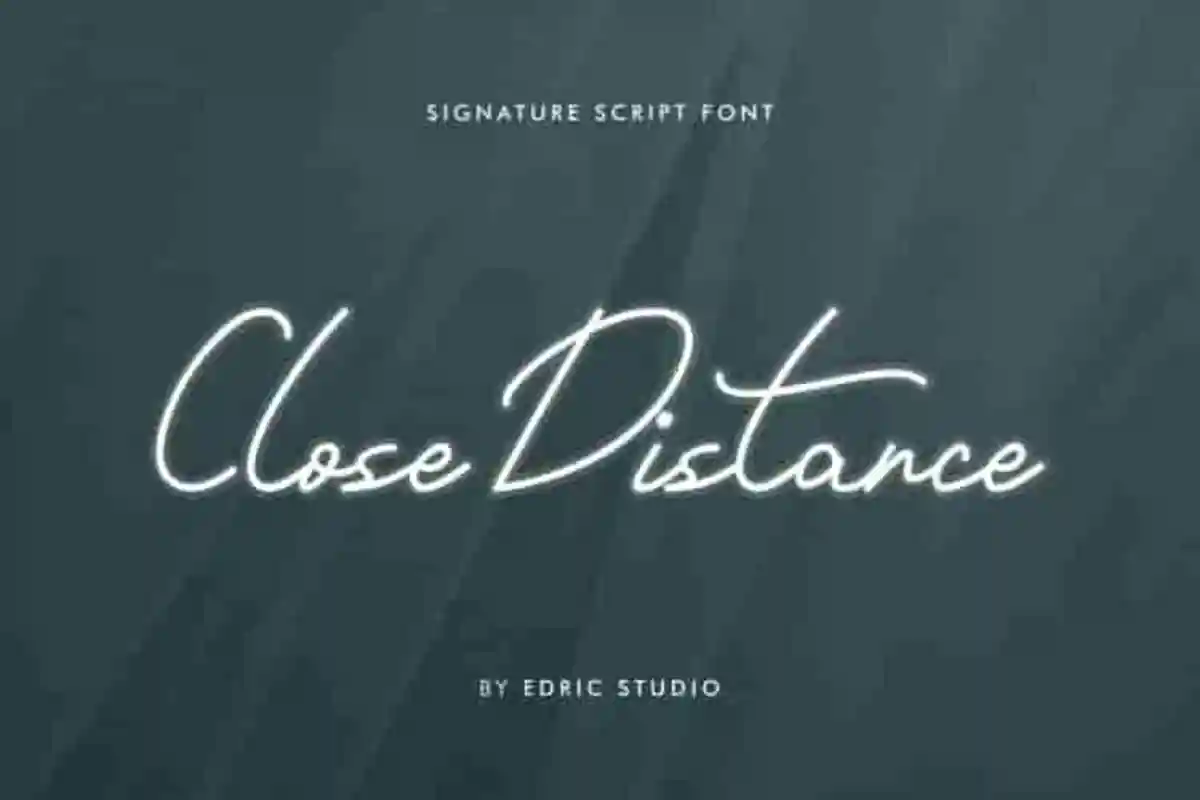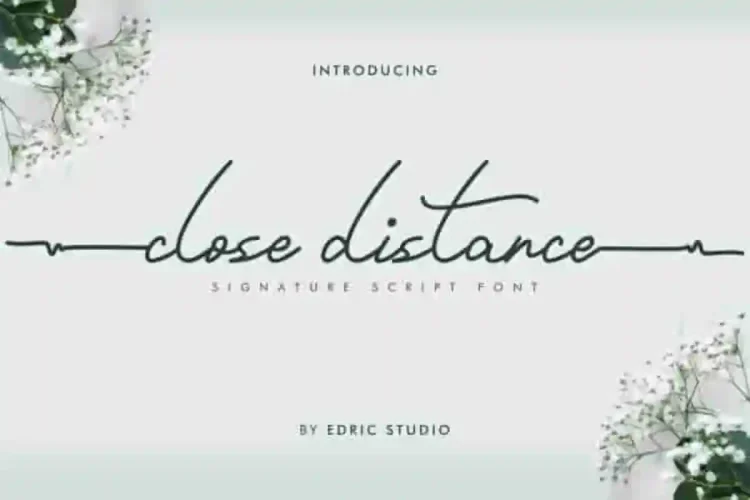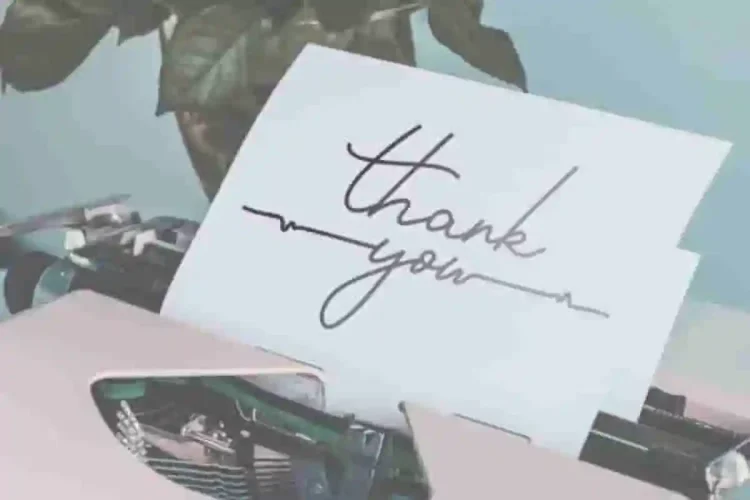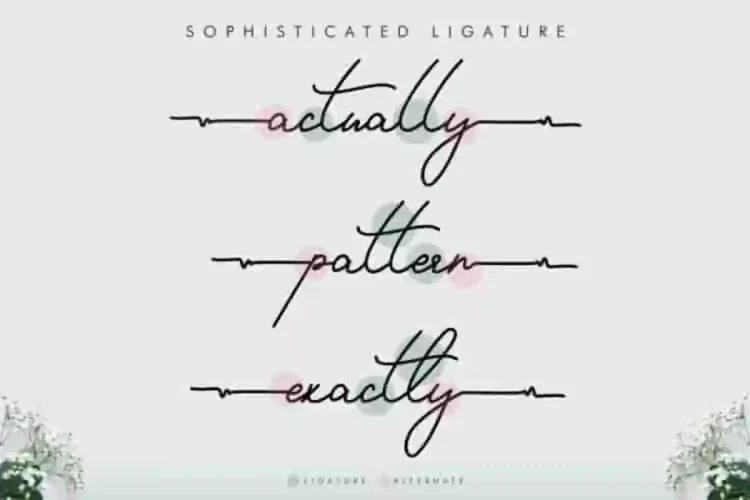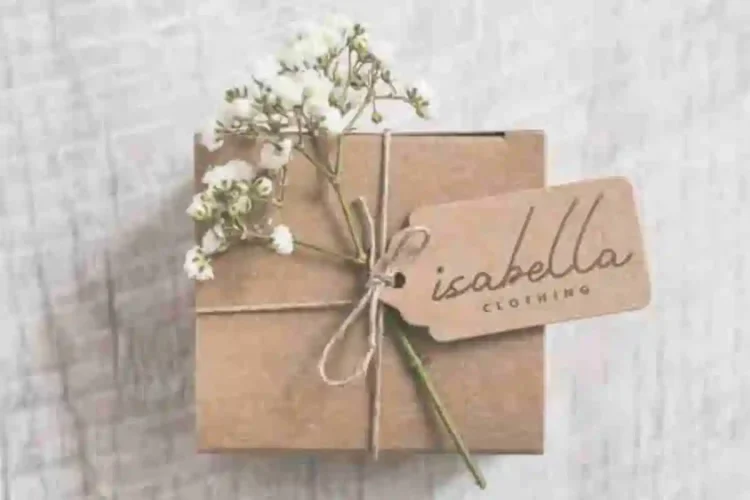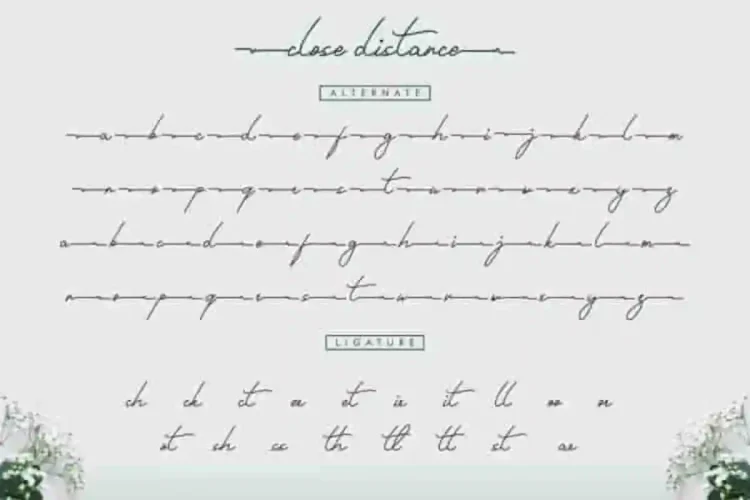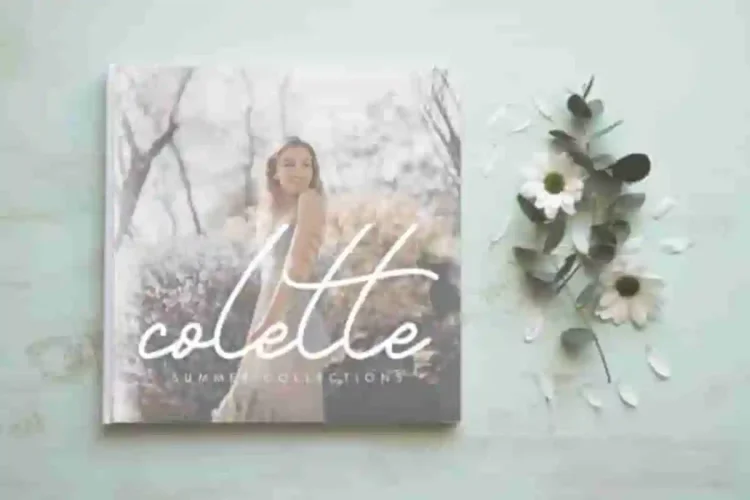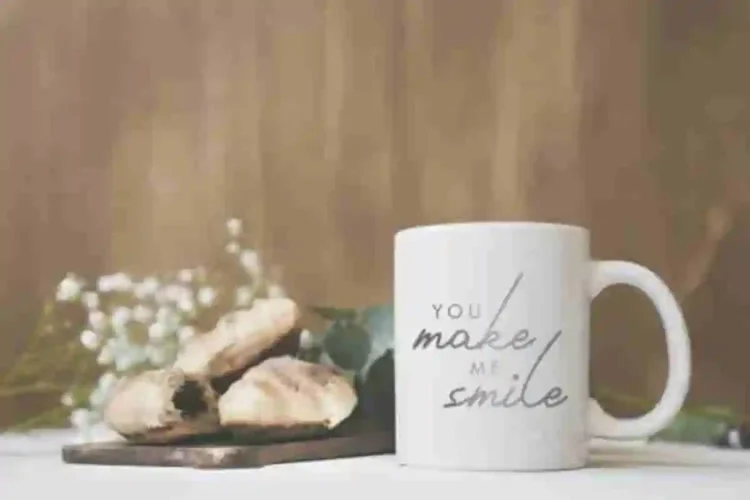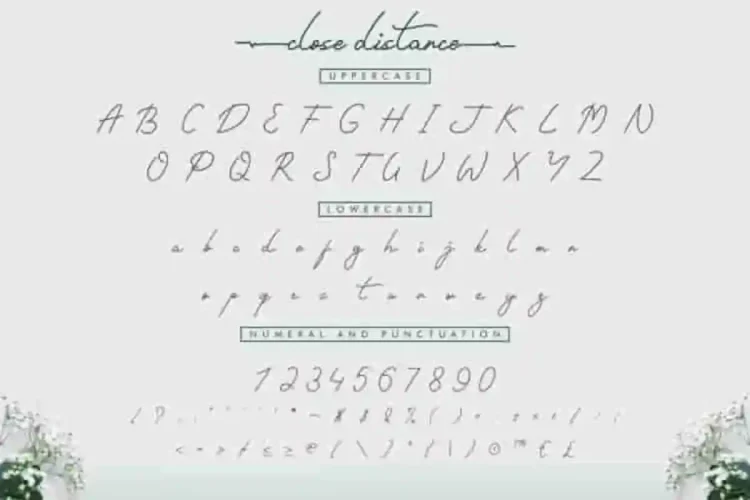
Close Distance Calligraphy Script Font
Close Distance Font
The newest font from our lovely artist : Close Distance Font
This is a signature font, handcrafted from our Studio here in, Indonesia. The artists/designers of this beautiful tyeface is Widi and Sarah Suci.
Close Distance Calligraphy Script Font is an exclusive calligraphy script typeface with signature style. This font has a stunning characters set, perfectly managed with well spaced and kerning. The theme style of this font will elegant,  vintage, stylish, sophisticated and classic signature style.
Close Distance Calligraphy Script Font will be great for any projects (with exntended license) including : branding, logo, stationery, business card, signage, flyer, brochure etc. Almost all industries will be match for this typeface: wedding, events, real estate, architect, law firm, florist, gardening, makeup artist, travel, hotel, musician etc.